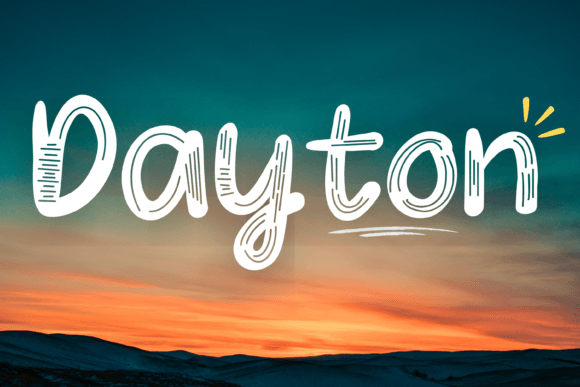
Step into the world of Dayton Font, where quirky charm meets vintage aesthetics. This playful font is not just a collection of letters; it's a portal to a past era, where imagination ran wild. With its retro vibe, Dayton Font will add a touch of whimsy to all your designs, making them stand out from the crowd. Whether you're creating logos with a timeless appeal, designing packaging that evokes nostalgia, or crafting book covers that transport readers to another time, the possibilities are endless with Dayton Font.
Dive into the world of Dayton Font and unleash your creativity. Let your designs dance to the rhythm of this lively font, capturing the hearts of your audience. From logos that exude a playful spirit to posters that burst with energy, Dayton Font is the perfect companion for injecting a dose of fun into your work. Transform ordinary designs into extraordinary ones with the magic of Dayton Font.